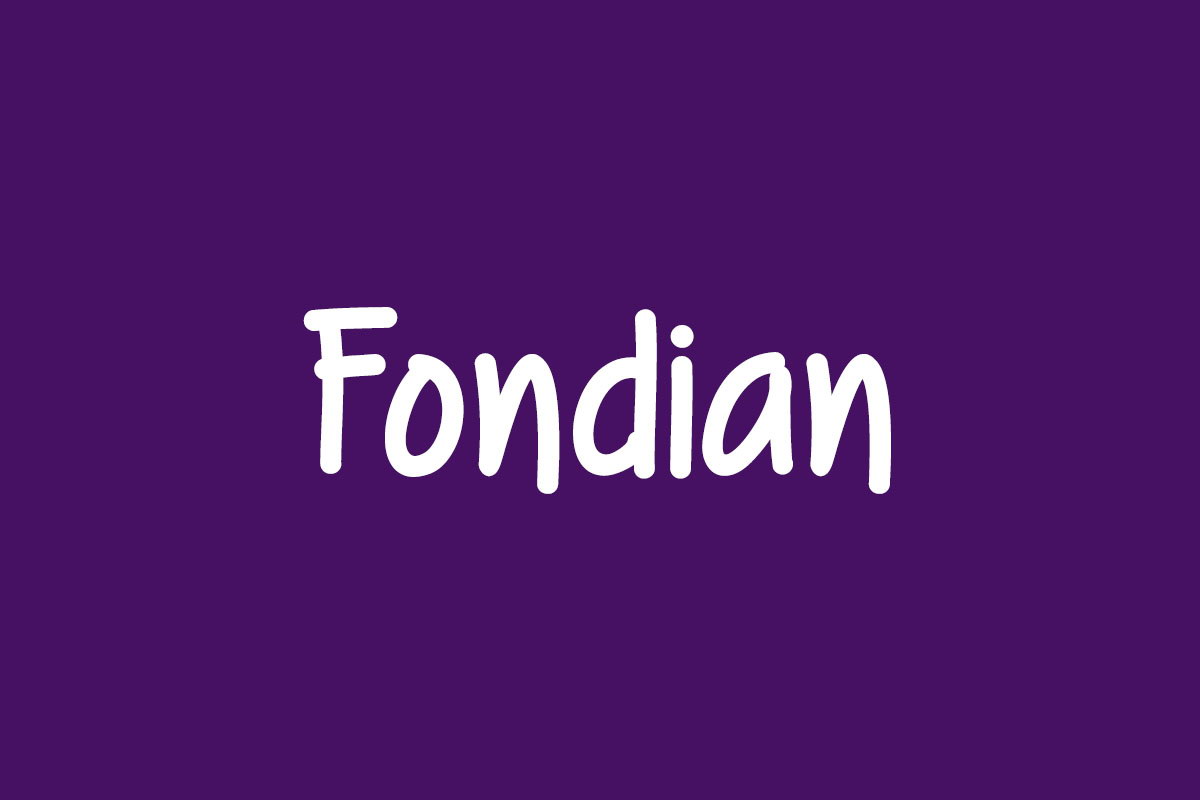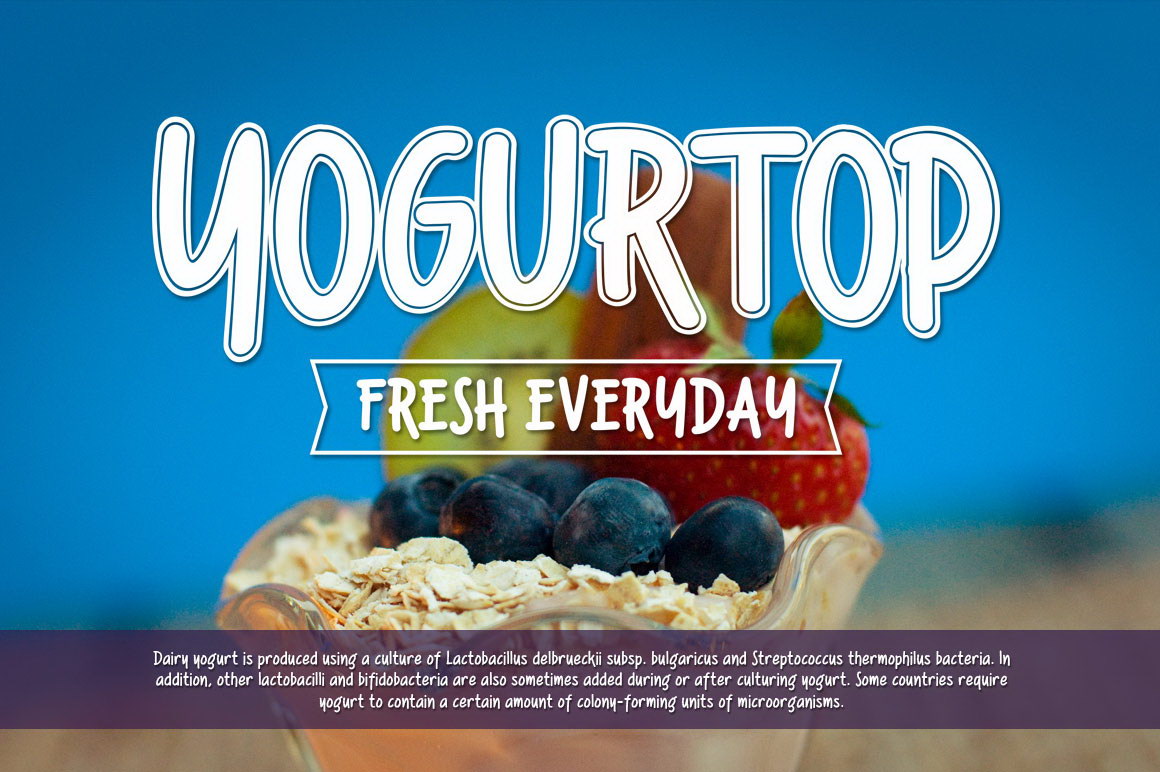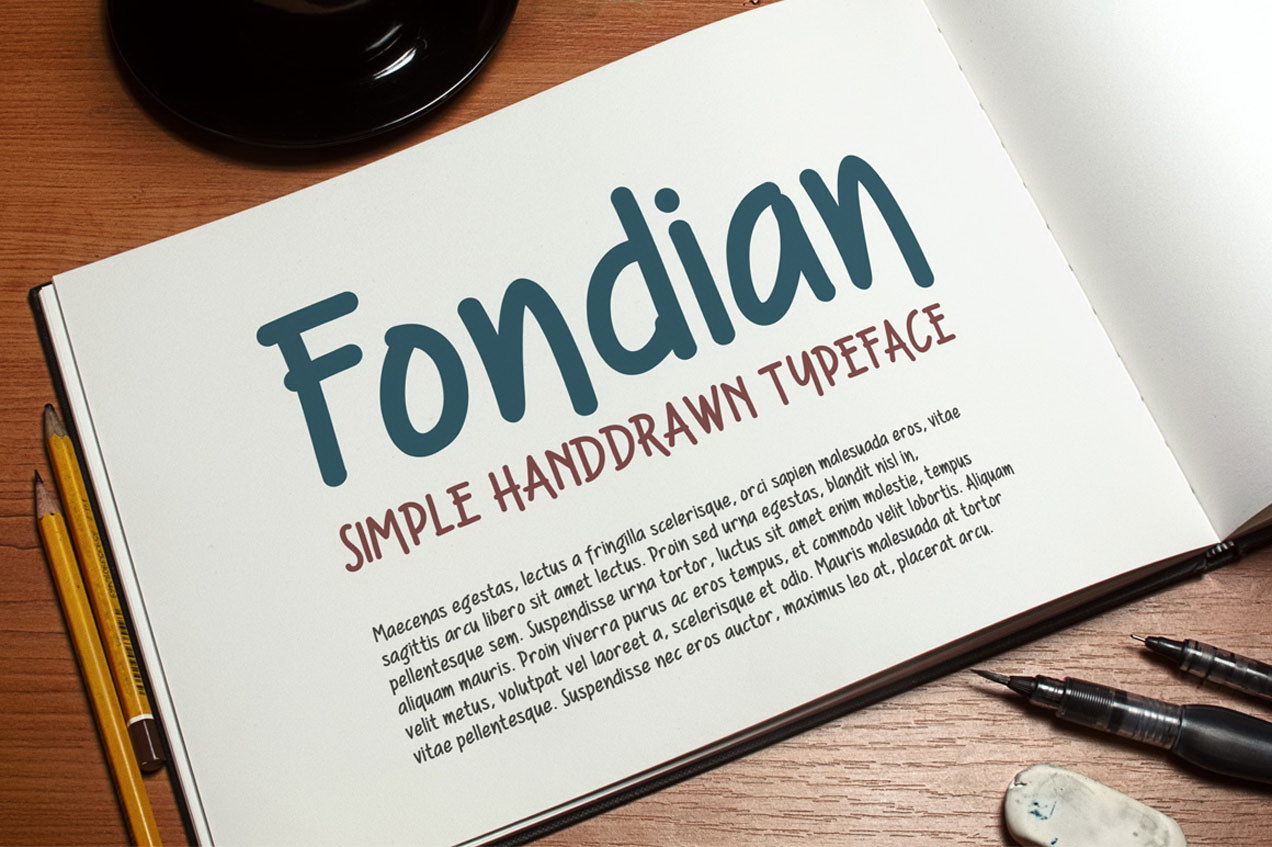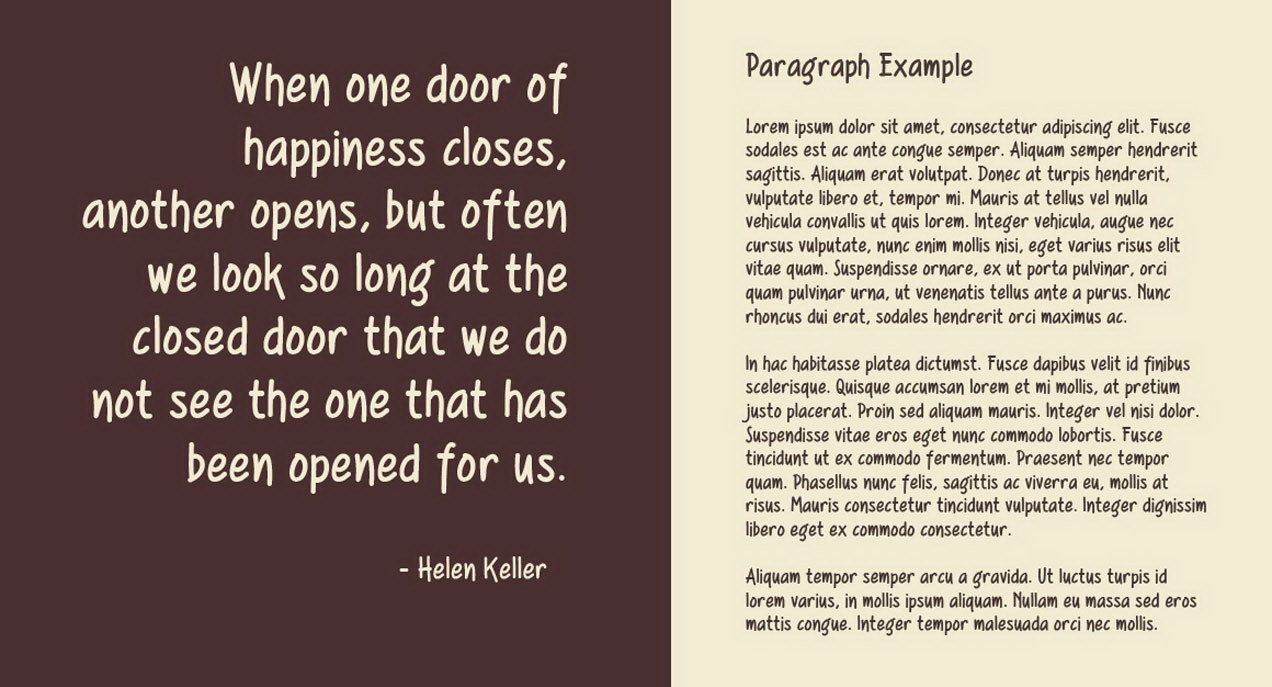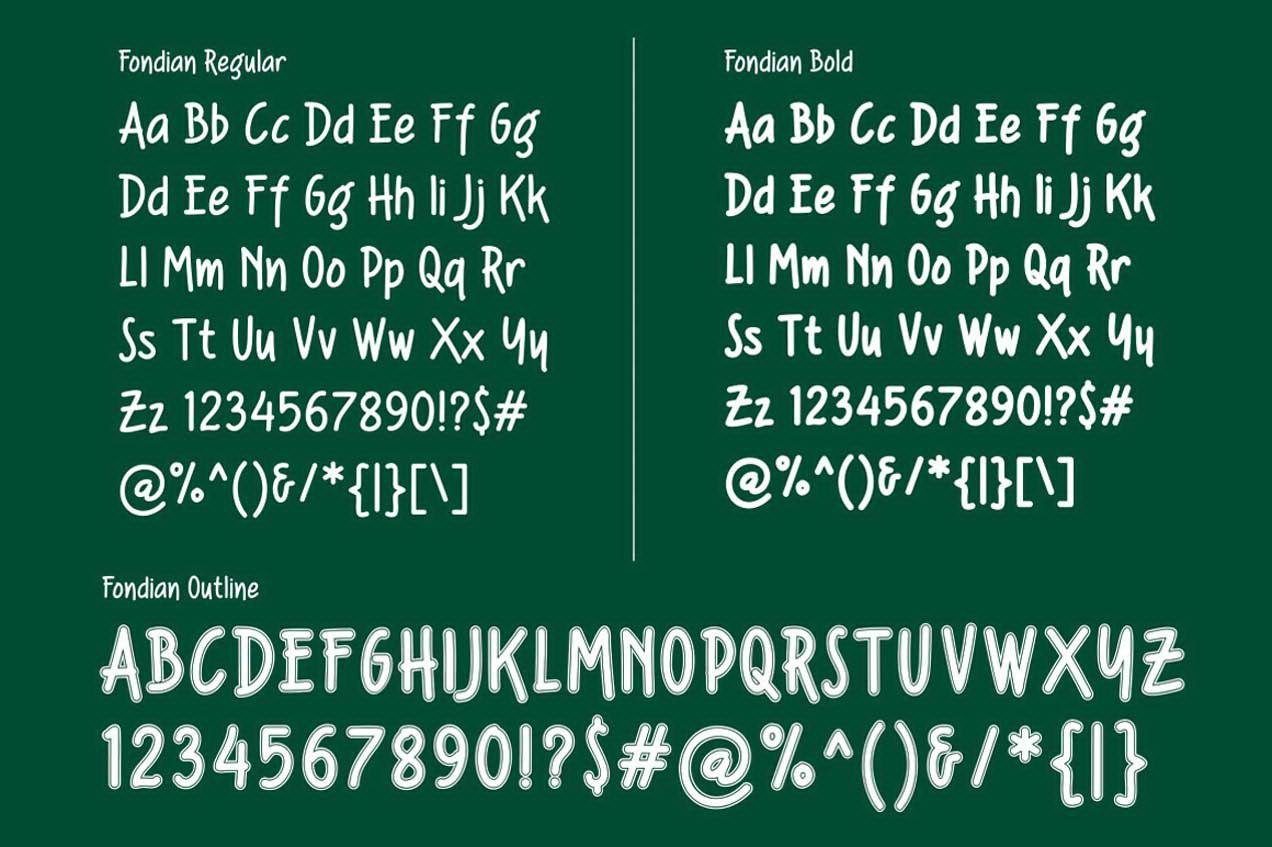
Fondian font is a simple typeface based on a hand lettering sketch. With a simple presentation, Fondian is very good for any purpose in your design. Ideal for the headline, retro design, poster, label, paragraph and pull quotes. Fondant is available in Regular, Bold, and Outline version.